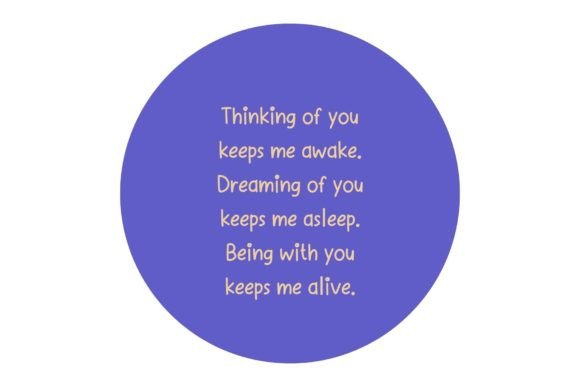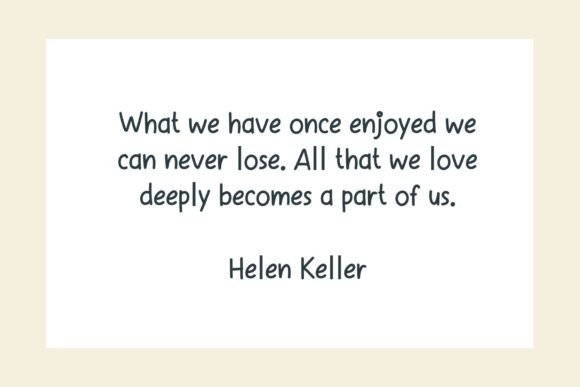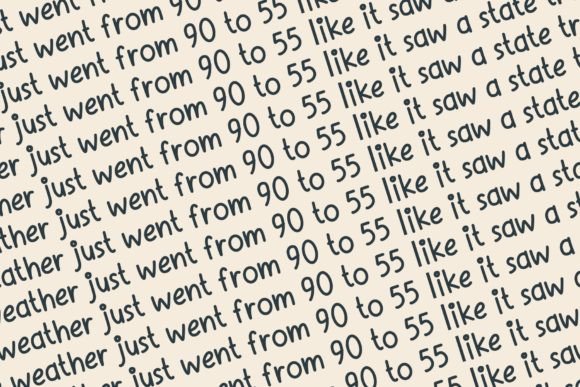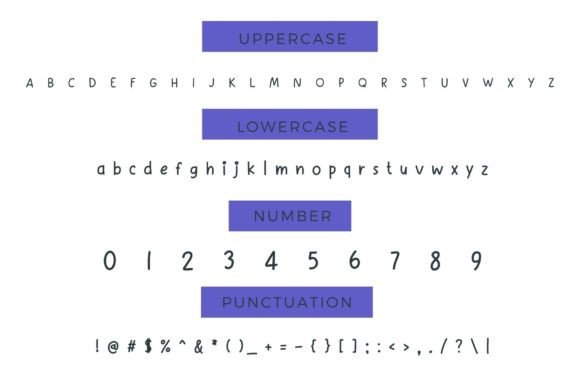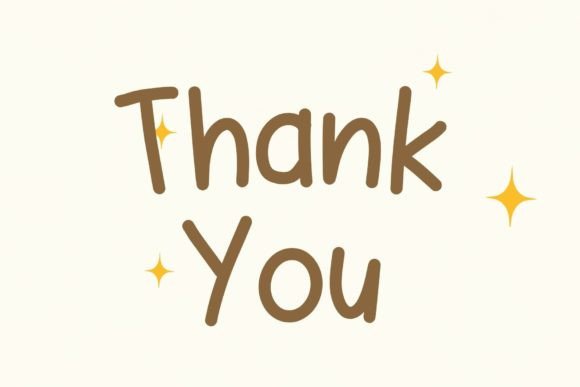
Gustavo Font: The Perfect Handwritten Touch for Your Designs
Are you looking for a font that adds a touch of playfulness and authenticity to your designs? Look no further than Gustavo Font! This adorable handwritten font is perfect for a wide range of projects, from blog posts and logos to branding, ads, invitations, and more. In this article, we’ll explore the features and benefits of Gustavo Font, and show you how to make the most of this versatile and charming font.
What is Gustavo Font?
Gustavo Font is a carefully crafted handwritten font that embodies the spirit of playfulness and authenticity. Its unique and charming lettering style makes it perfect for adding a personal touch to your designs. Whether you’re a designer, crafter, or DIY enthusiast, Gustavo Font is an excellent choice for any project that requires a friendly and approachable feel.
Features of Gustavo Font
Gustavo Font boasts a range of features that make it an excellent choice for designers and crafters. Some of its key features include:
- Playful and authentic style: Gustavo Font has a unique and charming handwritten style that adds a touch of personality to your designs.
- Versatile: This font is perfect for a wide range of projects, from blog posts and logos to branding, ads, invitations, and more.
- Easily readable: Despite its playful style, Gustavo Font is easy to read and understand, making it perfect for body text and headings.
- High-quality design: Gustavo Font is designed with precision and attention to detail, ensuring that it looks great in any context.
Uses for Gustavo Font
Gustavo Font is an incredibly versatile font that can be used in a wide range of projects. Here are some ideas to get you started:
- Blog posts: Add a personal touch to your blog posts with Gustavo Font. It’s perfect for headings, subheadings, and body text.
- Logos and branding: Create a unique and memorable logo with Gustavo Font. Its playful style makes it perfect for businesses that want to stand out.
- Ads and marketing materials: Gustavo Font is an excellent choice for ads, flyers, brochures, and other marketing materials. Its friendly style is sure to grab attention.
- Invitations and greeting cards: Add a personal touch to your invitations and greeting cards with Gustavo Font. It’s perfect for special occasions like weddings, birthdays, and holidays.
- Planners and photo albums: Gustavo Font is a great choice for planners, photo albums, and other DIY projects. Its playful style adds a touch of personality to any project.
Tips for Using Gustavo Font
Here are some tips for getting the most out of Gustavo Font:
- Experiment with different sizes and colors: Gustavo Font looks great in a range of sizes and colors. Experiment with different combinations to find the one that works best for your project.
- Pair with other fonts: Gustavo Font pairs well with other fonts, especially sans-serif fonts. Try pairing it with a clean and simple font for a striking contrast.
- Use it consistently: To get the most out of Gustavo Font, use it consistently throughout your project. This will help create a cohesive and professional look.
Gustavo Font is a charming and versatile handwritten font that’s perfect for designers and crafters. Its playful and authentic style makes it an excellent choice for a wide range of projects, from blog posts and logos to branding, ads, invitations, and more. With its high-quality design and easily readable style, Gustavo Font is sure to become a favorite in your font collection. So why not give it a try? Add Gustavo Font to your designs today and see the difference it makes!